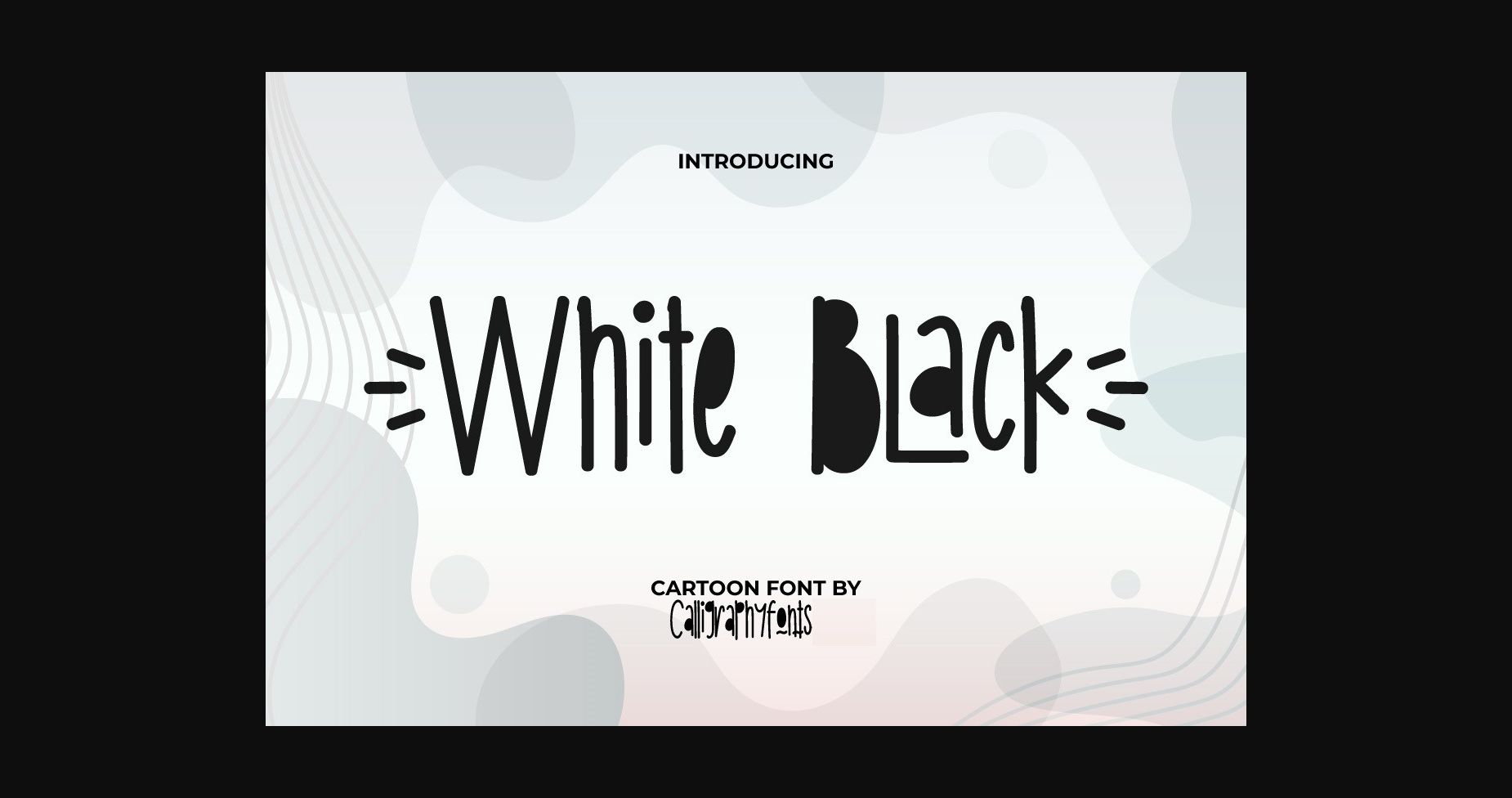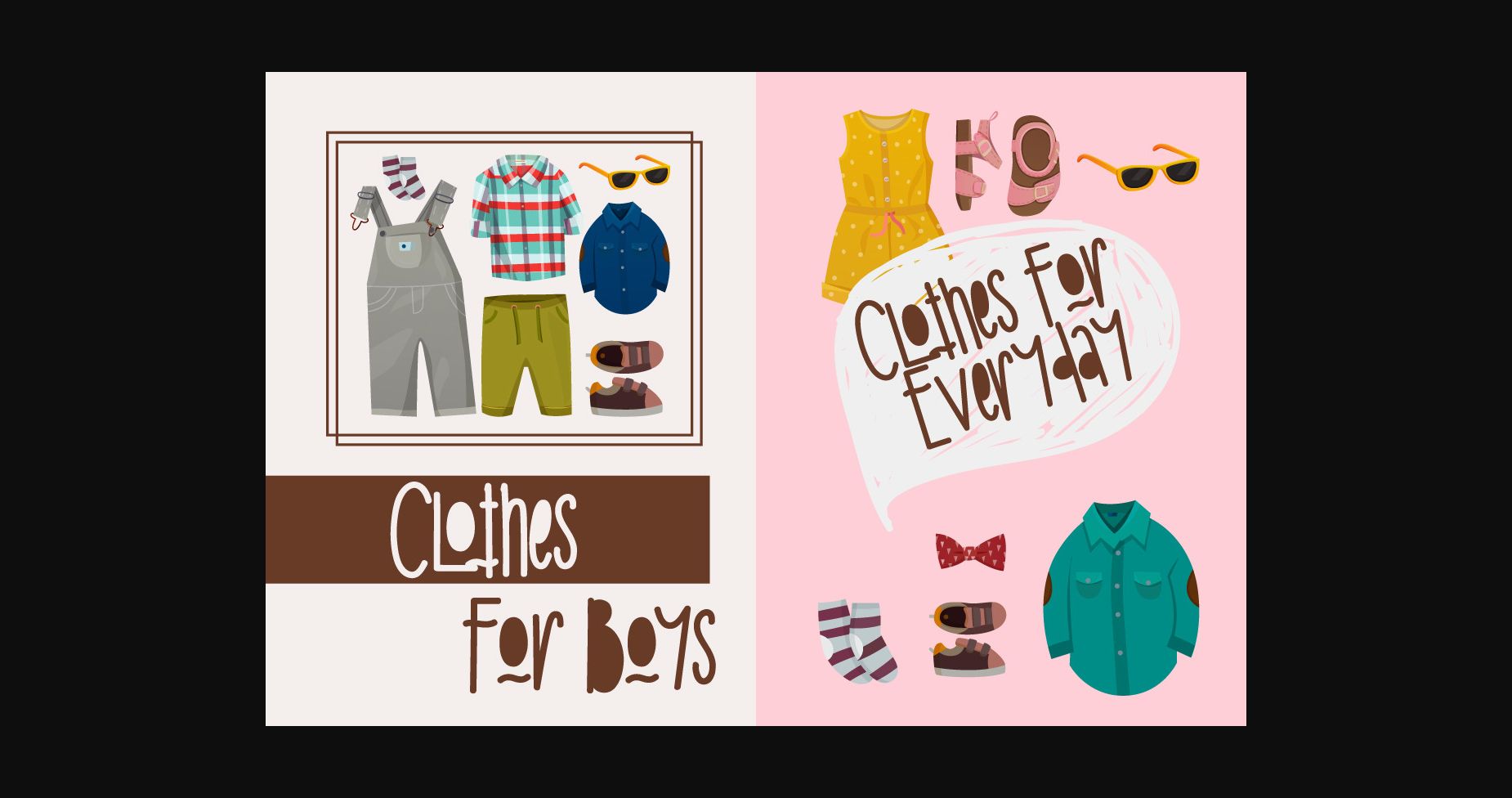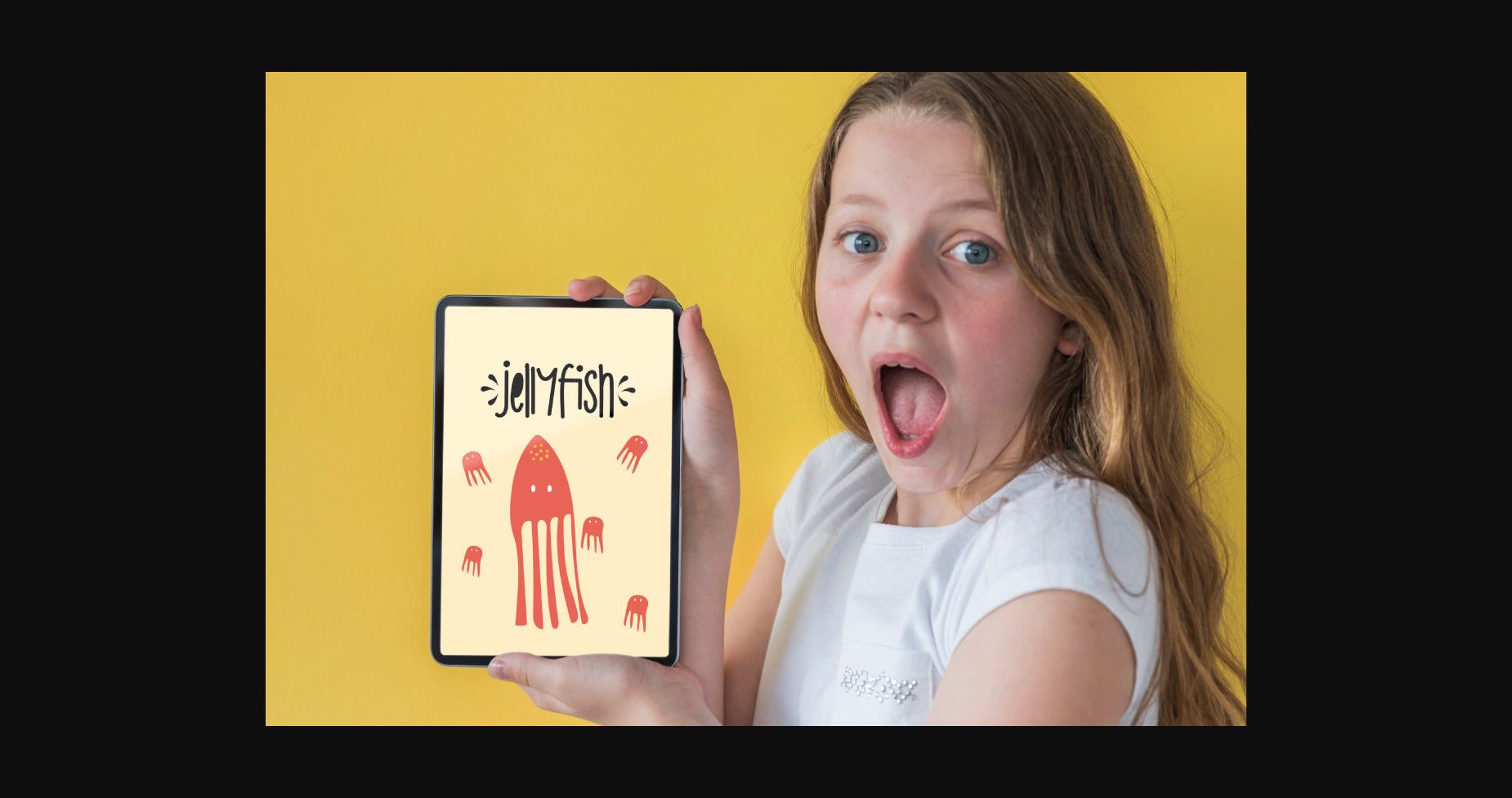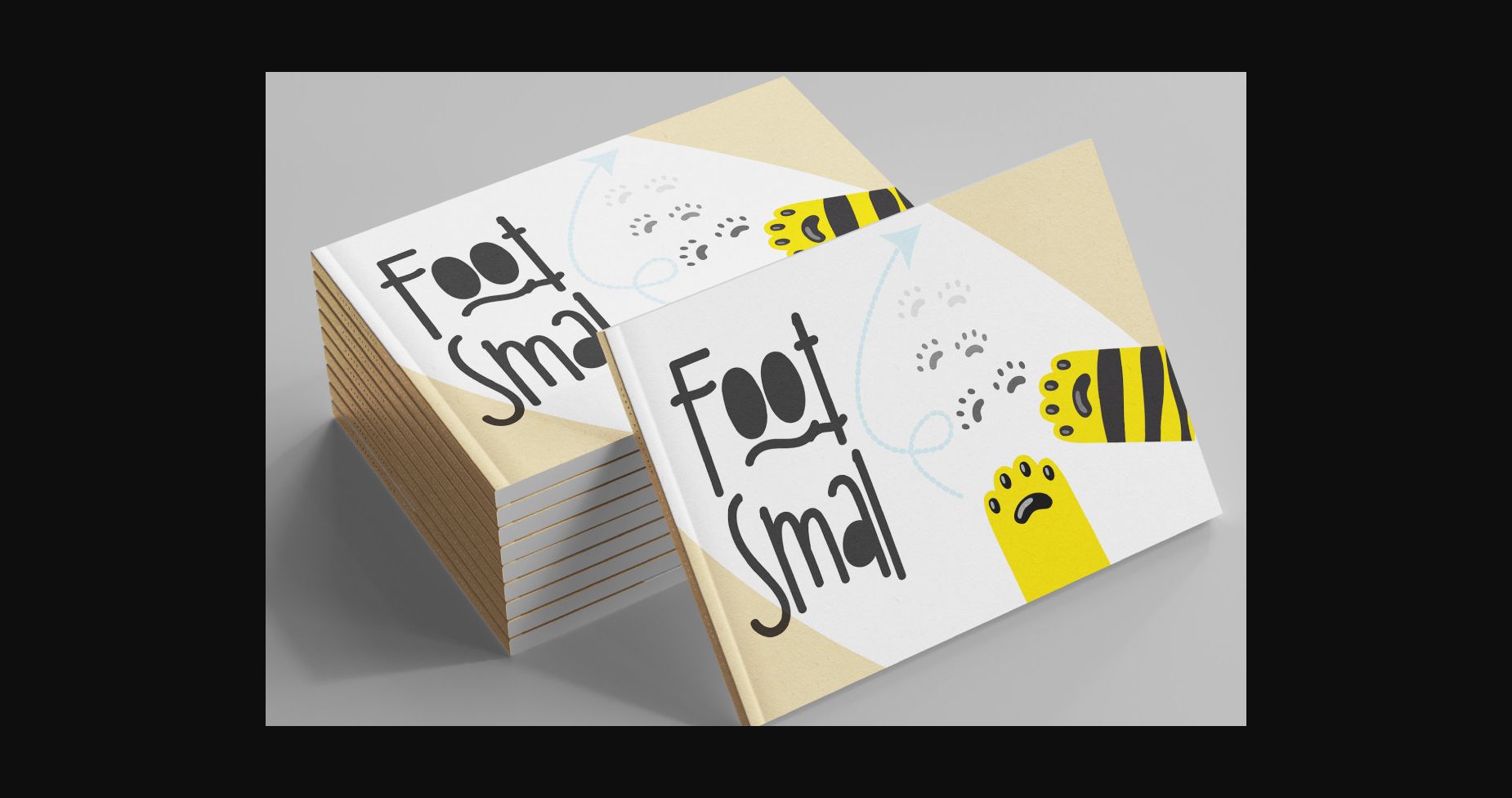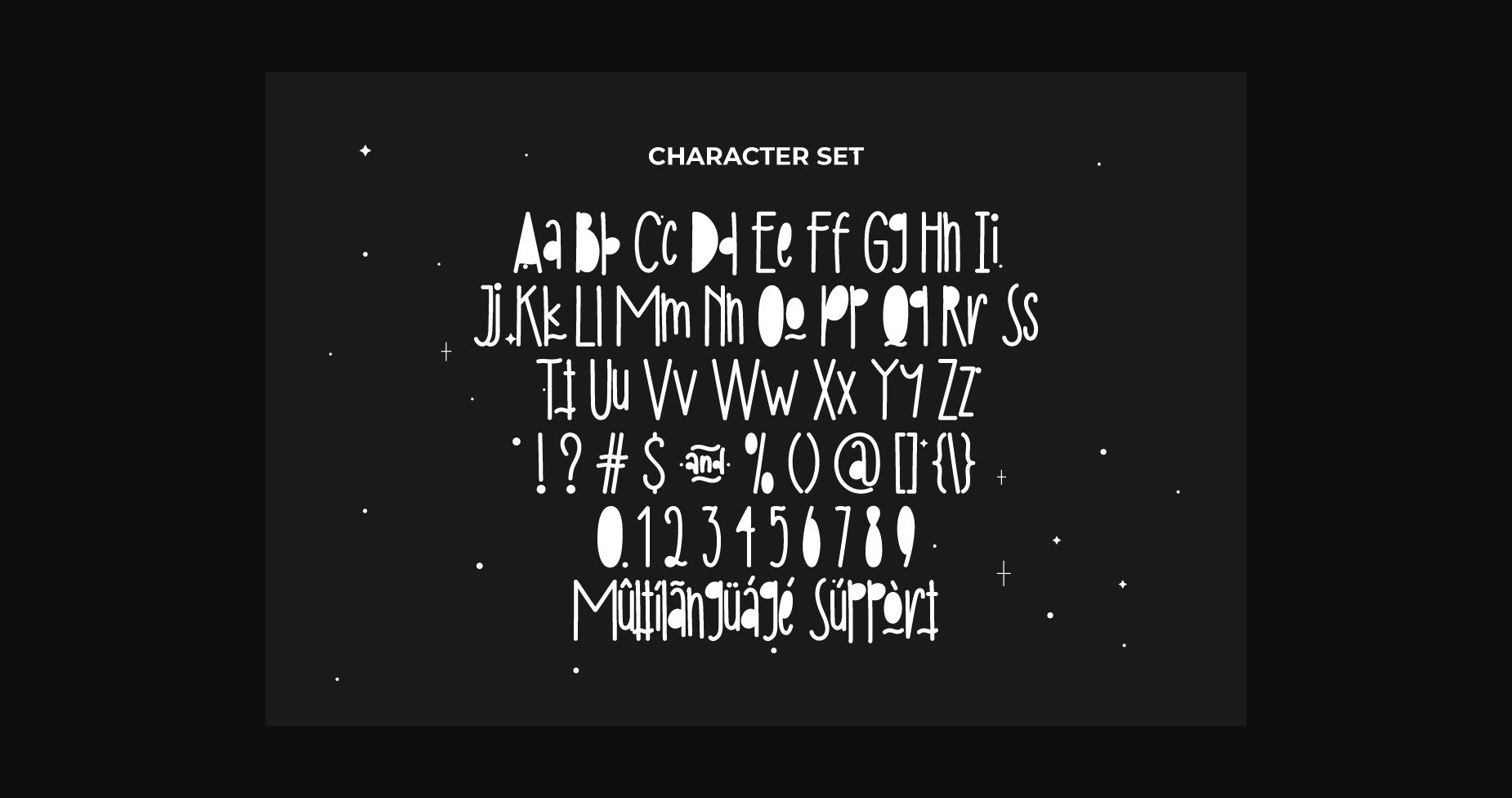
About White Black Font
White Black is a doodle sans serif font with simplicity and a unique style. It is great for business cards, logos, product packaging, posters, t-shirt, and many other projects that require a fun and cute style.
White Back will be awesome for many industries including fashion, food, games, kids, school, and more!